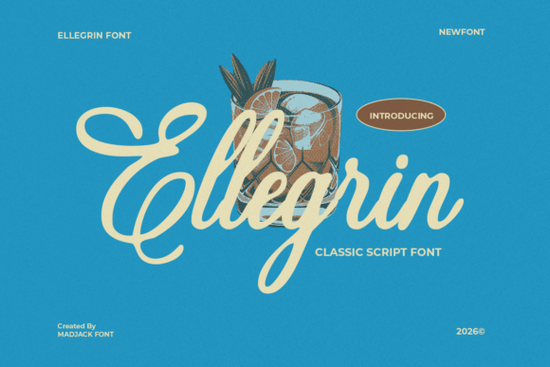
Ellegrin Font is a standout choice for anyone looking to add a unique, handwritten flair to their design projects. This bold and curvy script font brings a retro vibe with a touch of elegance, making it perfect for everything from eye-catching headlines to creative logos. Whether you're designing for a birthday card, a wedding invitation, or a playful poster, Ellegrin Font offers a personal and expressive style that stands out.
Designers, crafters, and small business owners often seek fonts that can bring a fresh perspective to their work. Ellegrin Font fits that need perfectly. Its fluid strokes and dynamic shape make it ideal for branding, packaging, and any project where a handcrafted feel is desired. The font’s versatility means it can be used across different mediums, from digital designs to printed materials.
What Makes Ellegrin Font Unique?
Ellegrin Font isn’t just another script font it has a distinct personality. The flowing lines and rounded shapes give it a soft yet confident look, which works well for both formal and casual applications. Unlike more rigid typefaces, this font feels like it was written by hand, adding an authentic touch to any design. It’s especially effective when paired with modern sans-serif fonts to create contrast and visual interest.
If you’re looking for something that balances creativity with readability, Ellegrin Font delivers. It’s easy on the eyes while still making a strong visual statement. This makes it a great option for headlines, banners, and other prominent text elements where clarity and style are both important.
Best Uses for Ellegrin Font
Ellegrin Font shines in a variety of design contexts. For example, it’s a popular choice for birthday cards, wedding invitations, and creative posters. Its playful yet refined look makes it suitable for both personal and professional projects. Small businesses looking to establish a memorable brand identity can benefit from using this font in logos, social media graphics, and marketing materials.
For print-on-demand sellers, Ellegrin Font can help create visually appealing products that stand out in a crowded marketplace. Its handwritten style adds a custom feel, which many customers find appealing. Whether you’re designing t-shirts, mugs, or stickers, this font can elevate your offerings with its distinctive character.
Tips for Using Ellegrin Font Effectively
When working with Ellegrin Font, keep the following tips in mind:
- Use it for headlines only. Due to its intricate details, it may not be the best choice for large blocks of text.
- Pair it with a clean sans-serif font. This creates a balanced and professional look.
- Experiment with different sizes and weights. Adjusting these can help highlight key elements in your design.
Remember, the goal is to enhance your design without overwhelming it. Use Ellegrin Font strategically to make your work more engaging and memorable.
Whether you're a designer, a crafter, or a small business owner, Ellegrin Font offers a fresh and expressive way to communicate your message. Its unique style and versatility make it a valuable addition to any design toolkit.
Try using Ellegrin Font in your next project and see how it transforms your work. With the right approach, this font can help you create something truly special.
Checklist for Using Ellegrin Font:
- Test the font in different sizes and styles.
- Pair it with complementary typefaces.
- Use it for short, impactful text elements.
- Explore related fonts for variety.
- Ensure it aligns with your overall design aesthetic.